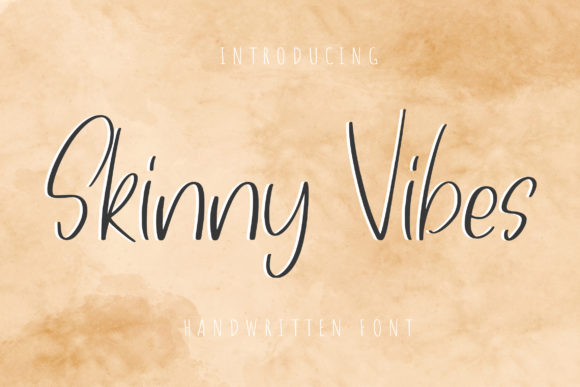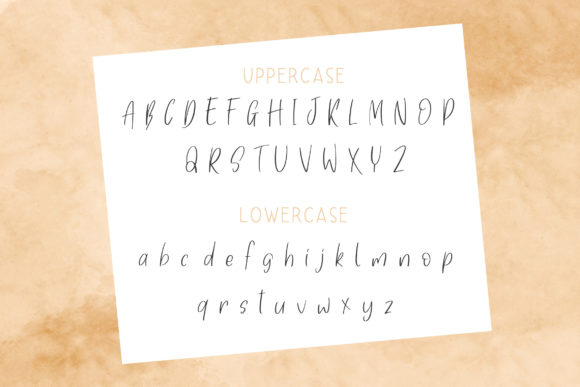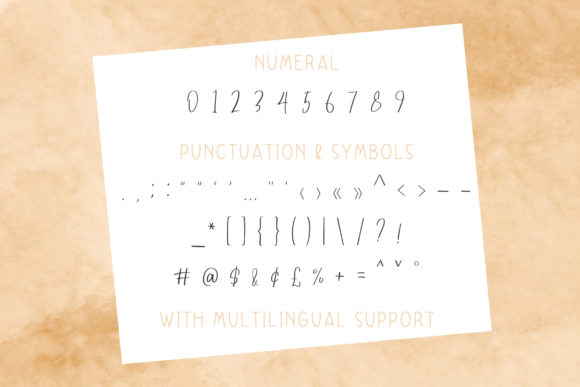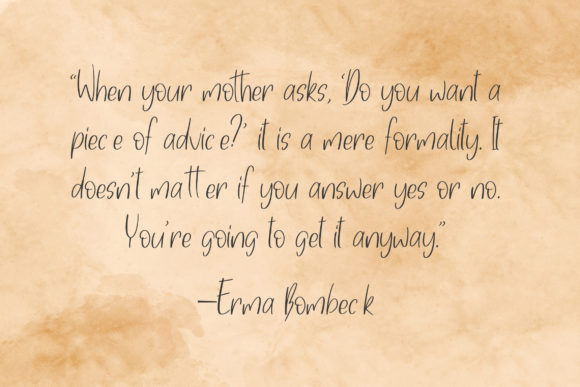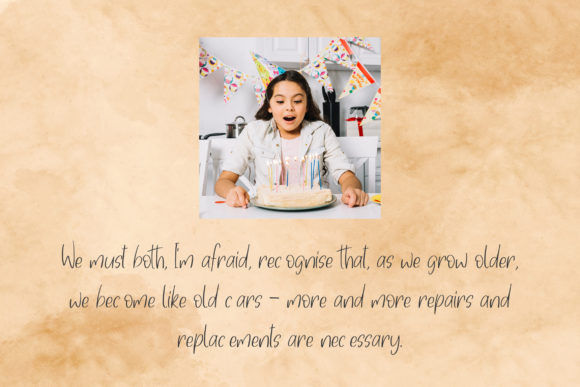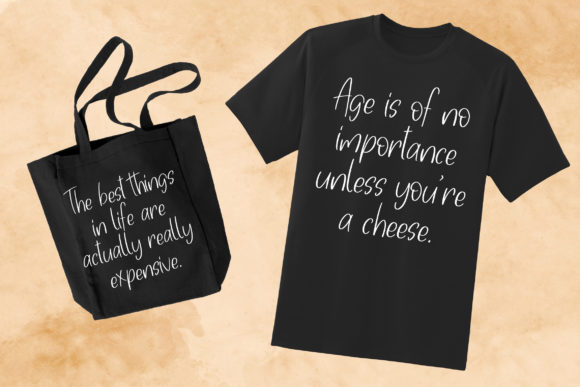
Skiny Vibes Font
About Skiny Vibes Font
Skinny Vibes is a thin lettered handwritten font that can be used for all chalkboard quotes or teaching material! Its authentic look and feel will add a personal and realistic feel to your designs.